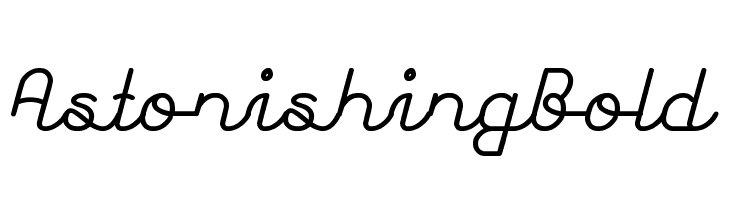
A bold, italic font with a modern and dynamic style.
A bold, italicized font with a playful, rounded style and smooth, flowing characters.
A bold, playful italic font with a dynamic and energetic style.